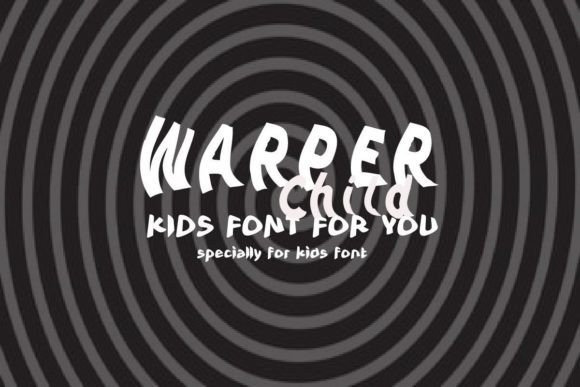
Behold, Warperchild Font, the ultimate typography masterpiece from MT EXCLUSIVE, a visionary foundry renowned for crafting fonts that transcend the boundaries of creativity. This captivating display font, designed with meticulous attention to detail, is more than just a collection of glyphs; it's an artistic expression that ignites imagination and sets your designs ablaze.
Step into a realm where letters dance in perfect harmony, where every word carries the weight of a thousand stories. Warperchild Font is not merely a font; it's a gateway to a world where your words come alive, where every design pulsates with vibrancy and leaves an unforgettable mark.
Unleash the boundless potential of Warperchild Font and witness the transformation of your creative endeavors. Whether crafting logos that demand attention, weaving headlines that resonate, or designing posters that ignite curiosity, Warperchild Font rises to the challenge, delivering results that captivate and inspire.
With Warperchild Font, you hold the key to unlocking a universe of creative possibilities. Its unique and cool design, meticulously crafted with passion and precision, breathes life into your creations. Experience the thrill of designing with a font that breaks the mold, a font that pushes boundaries and sets new standards for excellence.
Let your imagination run wild as you explore the endless possibilities of Warperchild Font. From game names that command attention to branding that leaves a lasting impression, this font is your ultimate weapon in the quest for design supremacy.
Do not settle for ordinary fonts that blend into the background. Choose Warperchild Font, the beacon of creativity that illuminates your designs and leaves an indelible mark on the minds of your audience. Embrace the power of typography and elevate your work to new heights with Warperchild Font, the font that redefines excellence.